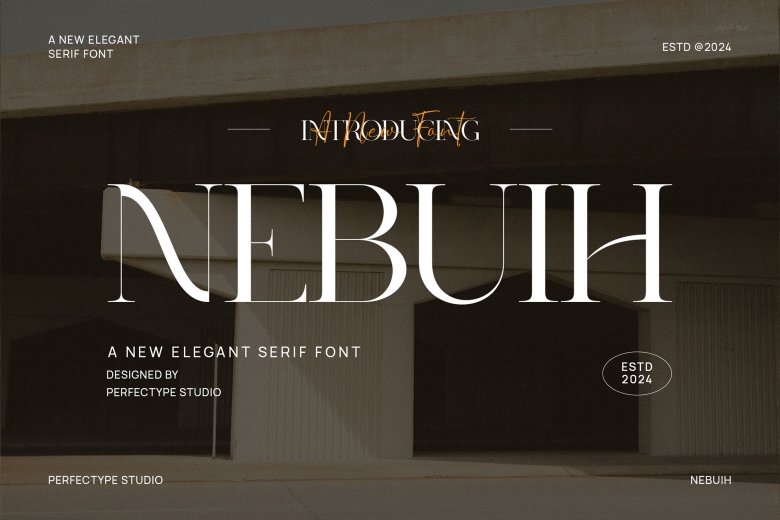
Nebuih Font
Nebuih Font designed with the blend of elegant serif typeface with a classy as well as modern look. This type of font is very appropriate for all occasions like branding materials, logos, wedding designs, social media graphics, ads, product designs, wrappers, labels, for photograph watermark, invites, stationeries, and any other clear readable project.
Nebuih Serif Font